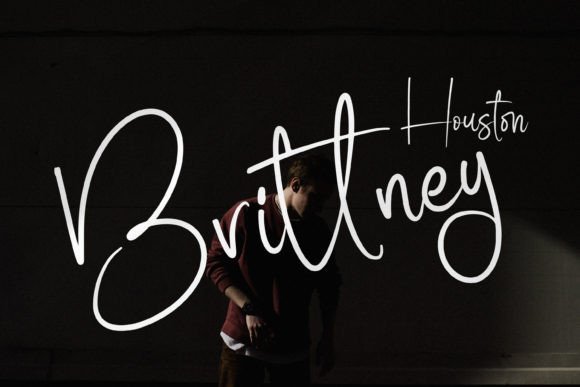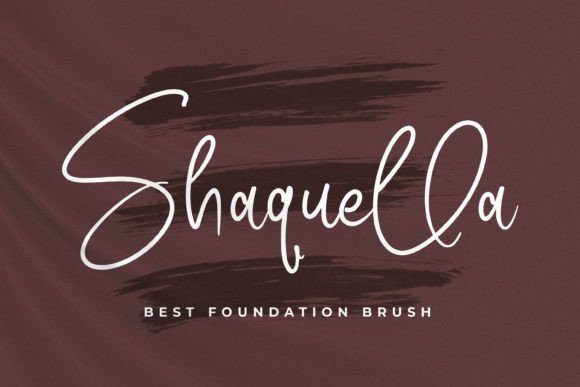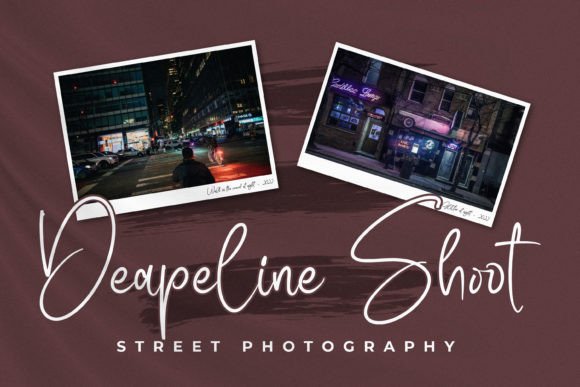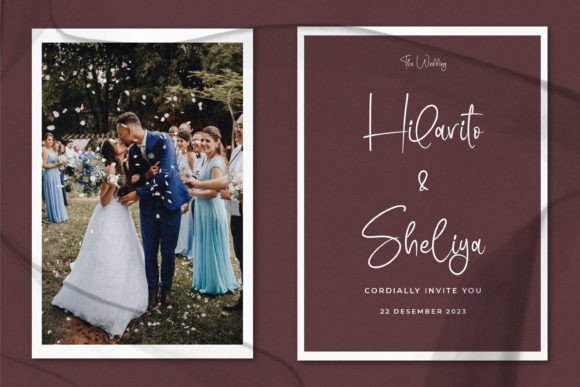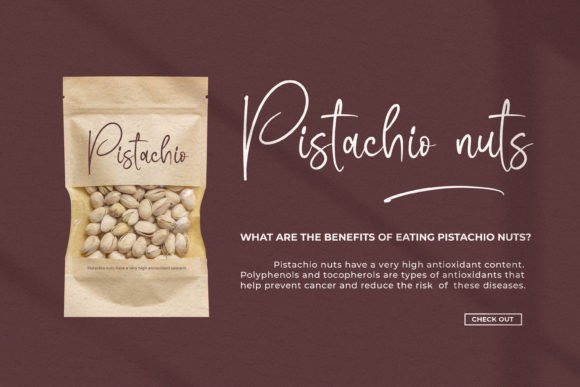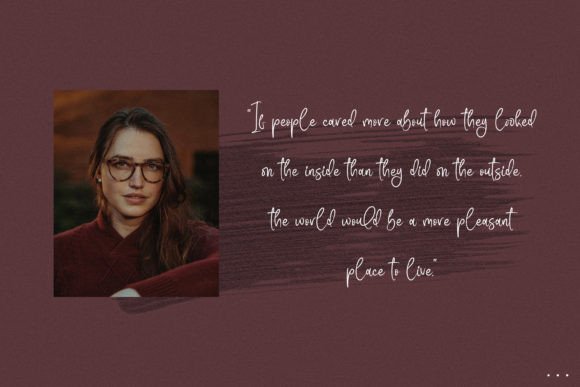
Introduction to Sejahttera Font
Have you ever found yourself brainstorming a creative project, only to be stopped in your tracks by the perfect font that would bring your vision to life? For designers, this moment is all too familiar. But what if you could unlock a world of premium typography with a single click? Enter Sejahttera Font, a stunning Modern Handwritten Font that’s perfect for elevating any project.
As a valuable design resource, Sejahttera Font offers a high-quality solution for creatives looking to add a touch of luxury to their work. With its elegant, handwritten style, this font is ideal for logos, branding projects, and even special events like weddings and birthdays. Whether you’re working on a product packaging design or creating a set of custom business cards, Sejahttera Font is sure to impress.
Key Features of Sejahttera Font
- Sejahttera Font is available in 3 font weights: Light, Regular, and Bold, allowing for versatile typography options.
- Features a modern, elegant design with clean lines and minimalist aesthetic, making it suitable for a wide range of creative projects.
- Unique characteristic: Sejahttera Font includes a unique set of ligatures and alternates, adding a touch of personality to your design.
Honest Review: Sejahttera Font
I recently had the opportunity to work with the Sejahttera Font, and I must say it’s been a game-changer for my creative projects. This high-quality font has been a fantastic design resource, offering a wide range of styles and versatility.
- ✨ Excellent legibility: The font is easy to read, even at small sizes.
- ✨ Diverse styles: The Sejahttera Font comes in a variety of styles, from modern to classic, making it perfect for any design project.
- ⚠️ Limited customizability: While the font offers a range of styles, customization options are limited.
- ⚠️ Not suitable for complex typography: The font may not be the best choice for projects that require intricate typography or multi-colored text.
The Sejahttera Font is perfect for use in a variety of creative projects, including logos, business cards, and brochures. Its high-quality design and transparent background make it easy to integrate into any design.